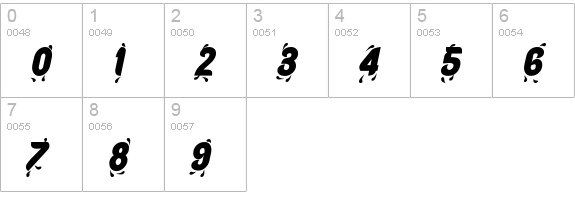
Shower Bold Italic Font Details
Shower Bold Italic is a strong, high-contrast, italic variant in the Shower typeface family \xE2\x80\x94 well suited to headlines, attention-grabbing titles, and strong calls-to-action.
Introducing the striking and stylish Shower Bold Italic font, the perfect choice for those seeking a unique and captivating typographical experience. This font exudes confidence and modernity, with its bold and italicized design that commands attention and makes a bold statement. Shower Bold Italic font effortlessly combines elegance with a touch of edginess, making it ideal for a wide range of creative projects. Whether you're designing a logo, creating eye-catching advertisements, or crafting visually stunning social media posts, this font will add a touch of sophistication and flair to any project. What makes Shower Bold Italic font even more appealing is that it is freely available to download at FontsMarket.com. Yes, you read that right! This high-quality and visually striking font can be yours without spending a penny. Embrace your creativity without any limitations, as this font empowers you to bring your design visions to life, completely free of charge. With its distinct and captivating letterforms, Shower Bold Italic font stands out from the crowd and ensures that your message is conveyed with impact and memorability. Its bold strokes and italicized style add a touch of drama and modernity, making it the perfect choice for those who want to make a lasting impression. So, whether you're a professional designer or simply someone who appreciates the power of words, Shower Bold Italic font is a must-have in your typographical arsenal. It's time to unleash your creativity and elevate your designs with this stunning and freely available font. Download it now at FontsMarket.com and let your imagination run wild.